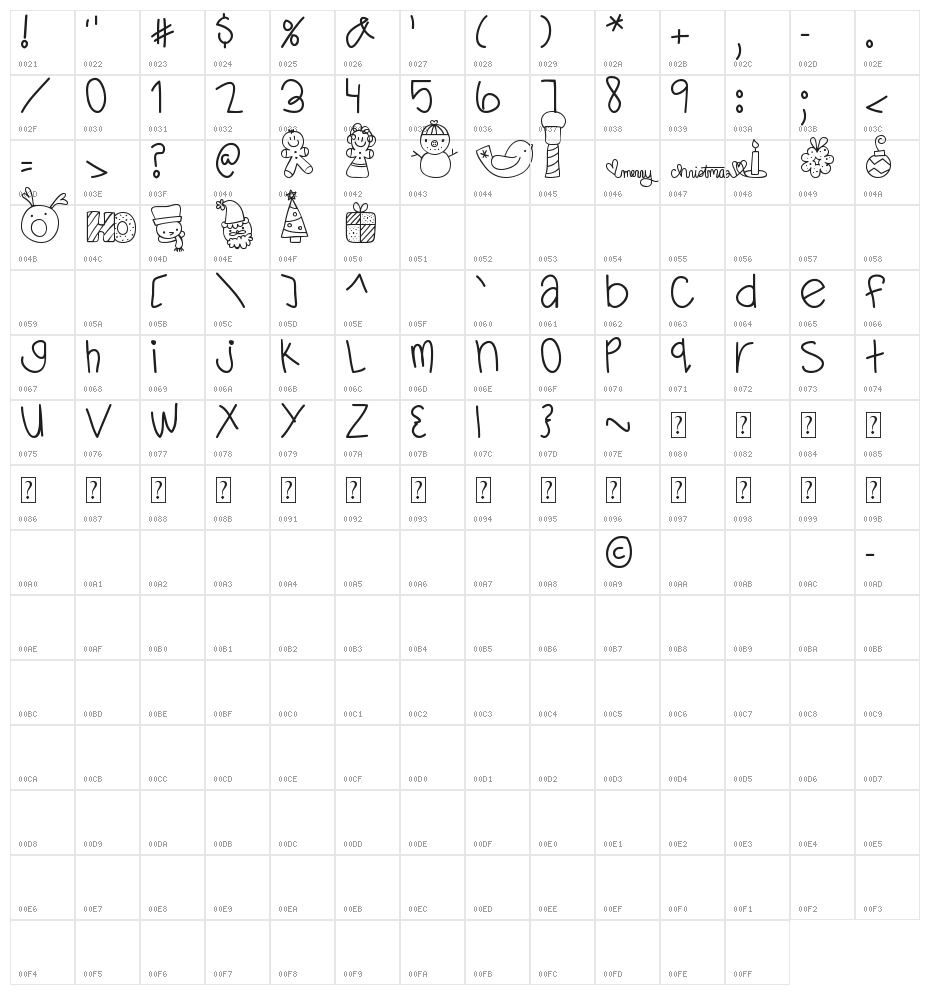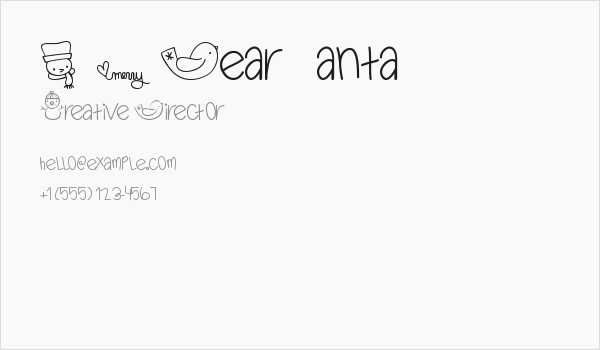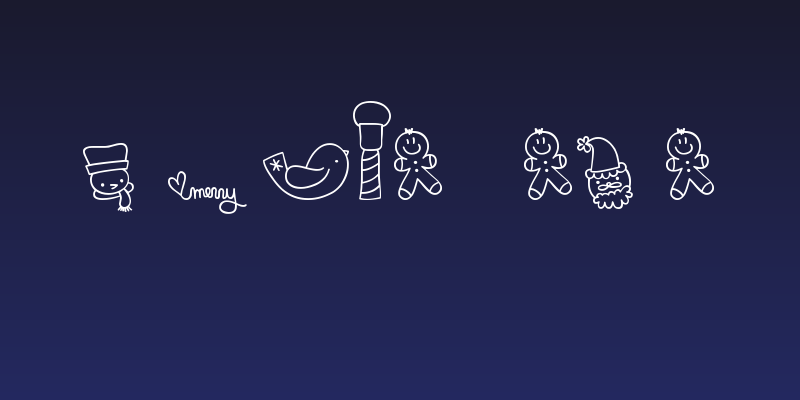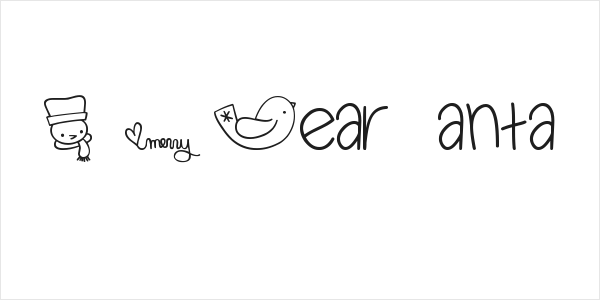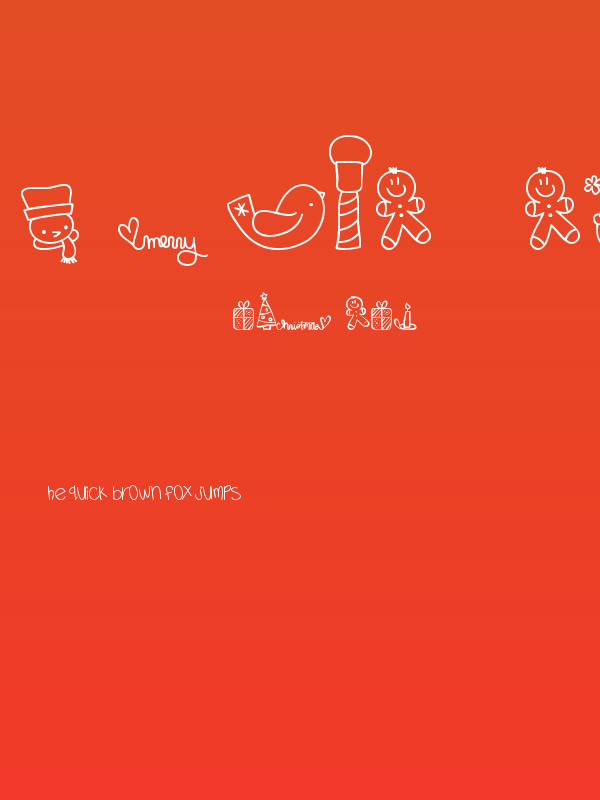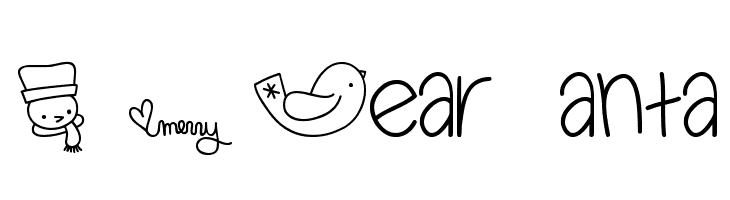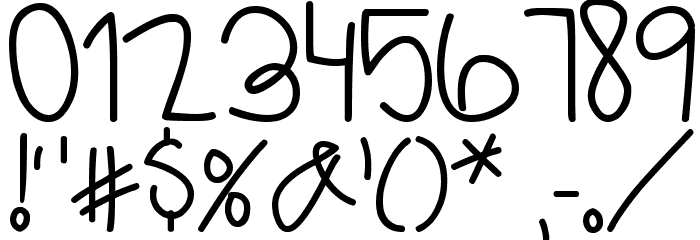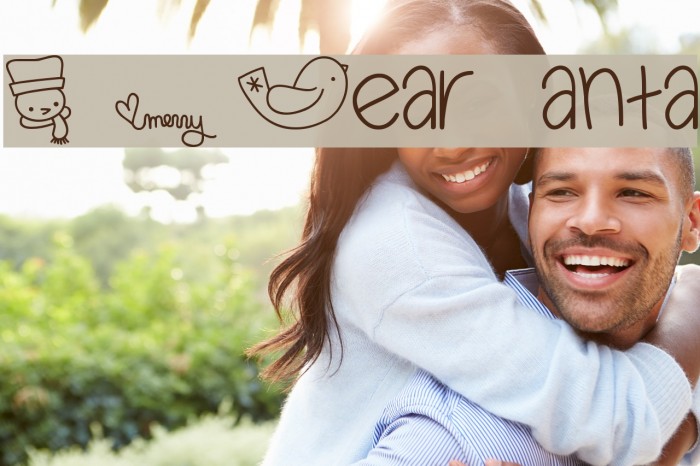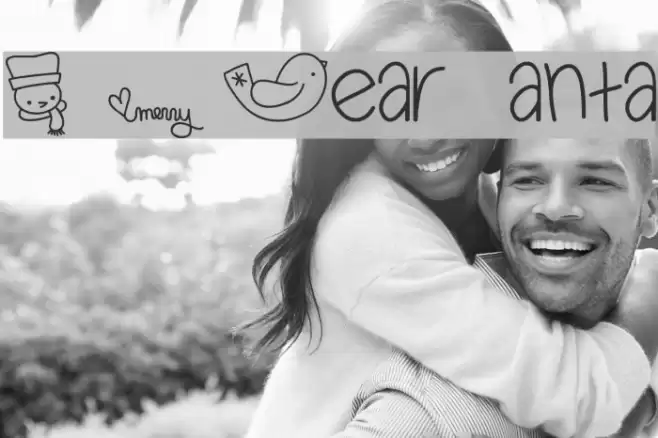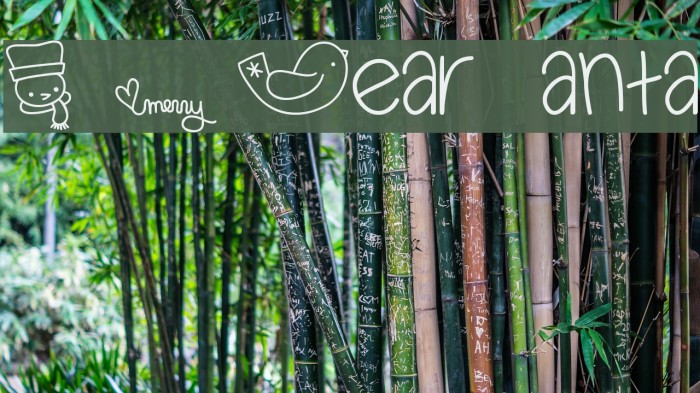
MTF Dear Santa Font
✎ Dingbats
| Cas d'utilisation | Headlines, Logos, Decorative text |
| Projets proposés | Ideal for holiday cards, festive invitations, children's books, and playful branding. |